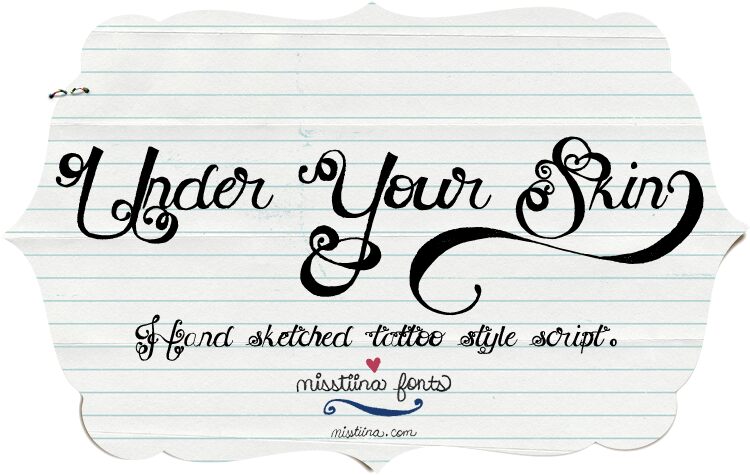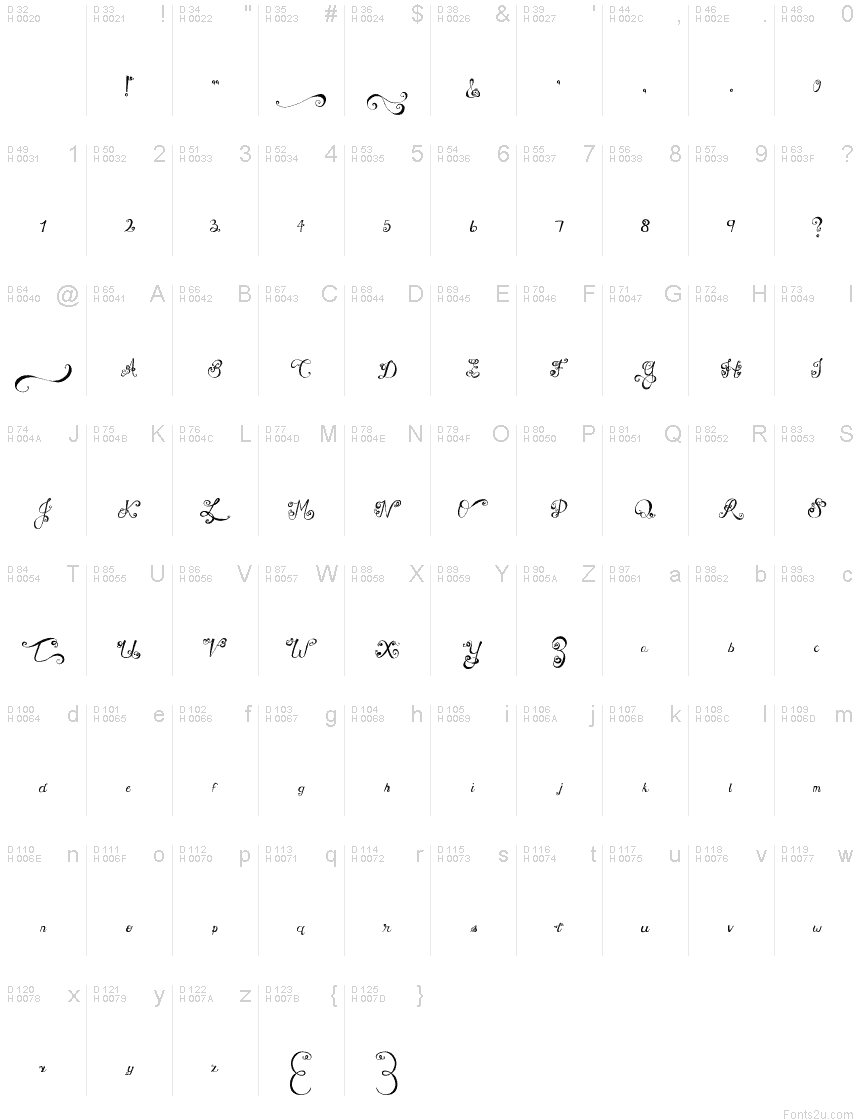
MTF Under Your Skin by Miss Tiina is a free ornate calligraphy font with sweeping swashes and pronounced changes between fine hairlines and broad, inky strokes. Spirals give the lettering a fanciful, theatrical air.
It is especially convincing on invitations, where the elaborate script can become part of the celebration, and also suits boutique packaging and event posters. The repeated curls echo ribbons and scrolling vines, linking the lettering to floral illustration and romantic wedding themes.